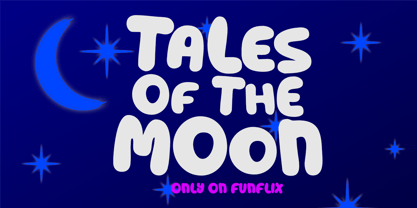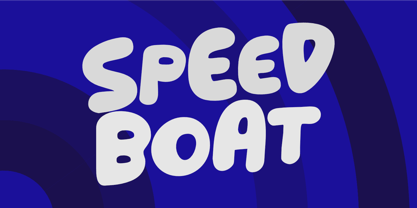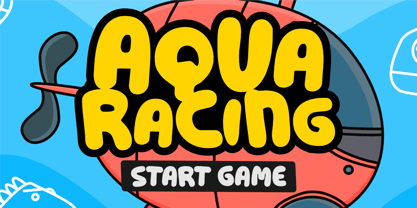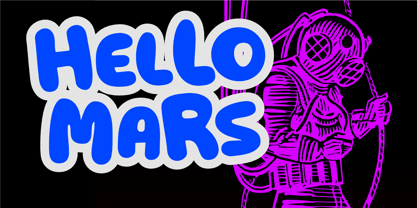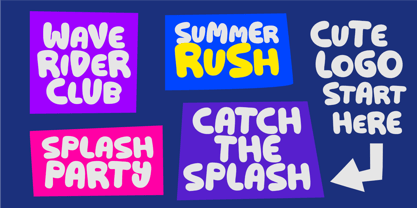
Speed Boat
by Epiclinez
The Speed Boat Font Family was designed by Aldy Sidik and published by Epiclinez. Speed Boat contains 1 styles. More about this family
Speed Boat Font is a cute, fun, and bold display typeface inspired by the thrill of ocean rides and playful summer vibes. With its chunky shapes, smooth curves, and energetic personality, this font brings a sense of motion and excitement to every design. Perfect for logos, movie titles, kids’ books, posters, packaging, and cheerful branding, Speed Boat Font creates a strong visual impact while staying friendly and approachable. Its bold structure ensures excellent readability, while its cute and lively style makes it ideal for projects that need a splash of fun. Whether you're crafting a playful brand, designing an animated title, or building a vibrant kids’ concept, this font helps your design ride the wave of creativity. Make waves with bold, cute, and unstoppable energy — Speed Boat Font.